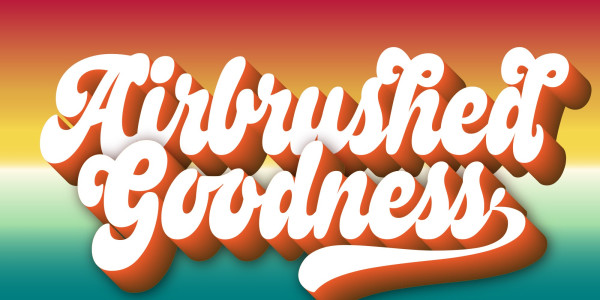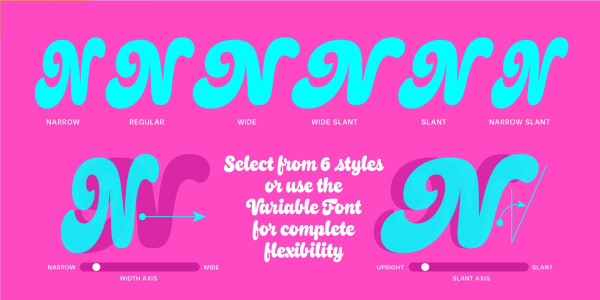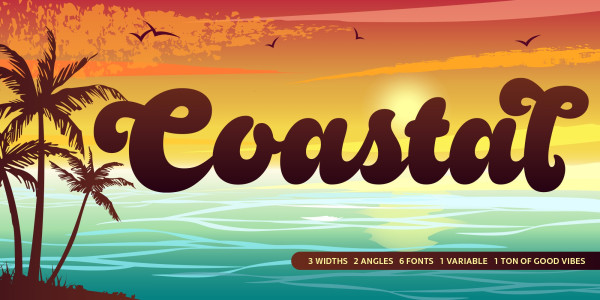
Coastal Font Family
Coastal Font Family, light-hearted, bouncy, and ebullient, Coastal will sit back in the passenger seat with the top down and the tunes on. Seriously drawn and purpose-built to just smile—we took care of all hard stuff, so this script works nice and easy for you. So easy, it was necessary to provide multiple swash and titling alternates, seven stylistic sets, and even fractions.
Three widths (not squeezed or stretched) and two angles (no shortcuts) make every attempt to give you what will need and what you might need. And if that doesn’t work, Coastal is available as a multi-axis variable font to tickle your typographic fancy. So, mix up some mai tais, grab your keyboard, and let the sunny vibes of Coastal meet you at the beach.